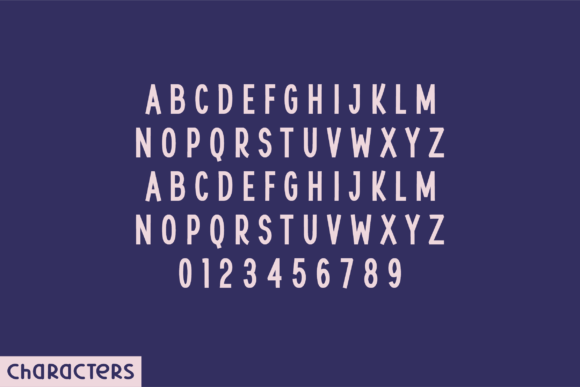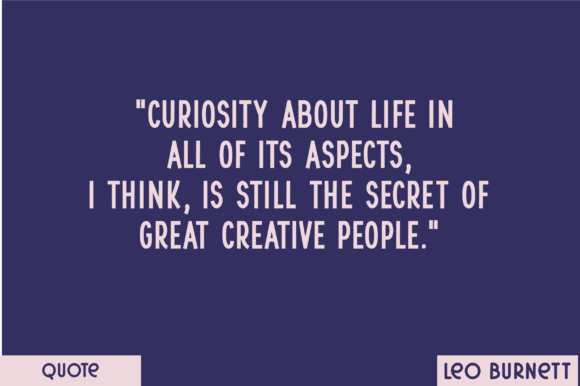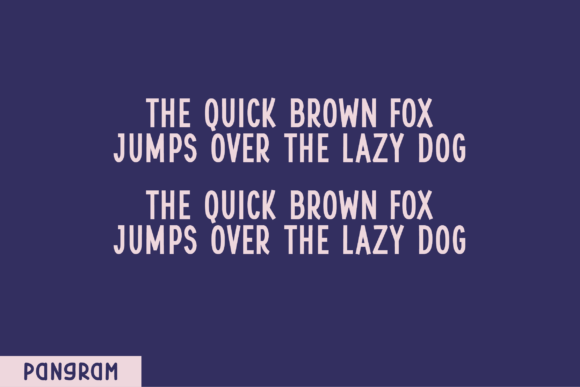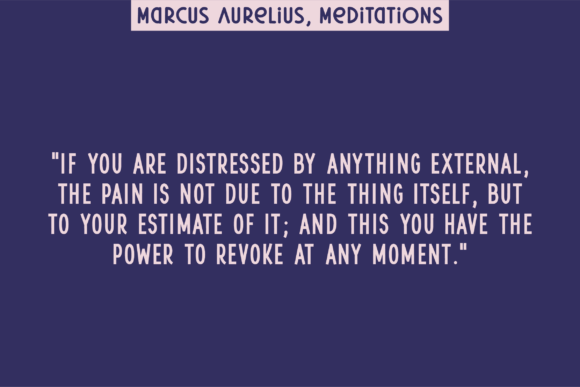
Introducing Deviled Font: The Unique Sans Serif for Creative Designs
In the world of typography, a new font has emerged that’s been making waves among designers and crafters alike. Meet Deviled Font, a natural sans serif font that’s been crafted with precision and creativity. What sets Deviled apart is its unique approach to font design, where not a single node in each character’s indentation has been altered. This distinctive feature makes Deviled a standout in the realm of typography, perfect for a variety of design applications.
The Story Behind Deviled Font
Deviled Font is the brainchild of a meticulous design process aimed at creating a typeface that’s both simple and intriguing. By preserving the original indentation of each character, the font achieves a natural, unaltered look that resonates with authenticity. This method not only pays homage to traditional typography but also infuses it with a modern twist, making it highly versatile for contemporary design needs.
Key Features of Deviled Font
- Natural Sans Serif: Deviled Font boasts a clean and crisp sans serif design, making it highly legible and perfect for a wide range of applications, from digital media to print.
- Unique Character Indentation: The hallmark of Deviled Font is its untouched character indentation. This unique feature gives the font a distinctive look that’s both visually appealing and thought-provoking.
- Versatility: Deviled Font is incredibly versatile, suitable for various design projects including quotes, notes, t-shirts, and any product design that requires a touch of uniqueness.
Deviled Font is a treasure trove for designers and crafters looking to add a personal touch to their creations. Its distinctive style makes it an excellent choice for:
- Quotes and Sayings: Add a unique flair to inspirational quotes, sayings, and phrases with Deviled Font’s natural and unaltered aesthetic.
- Notes and Journals: Elevate your journaling or note-taking with a font that offers both clarity and character.
- T-Shirts and Apparel: Stand out in the world of custom apparel with Deviled Font’s unique style that’s sure to turn heads.
- Product Design: Whether you’re designing for packaging, branding, or any product that needs a distinctive touch, Deviled Font is an excellent choice.
Tips for Using Deviled Font
To make the most of Deviled Font, consider the following tips:
- Experiment with Sizes: Deviled Font’s clear and natural design ensures it remains legible across various sizes. Experiment with different sizes to find the perfect fit for your project.
- Play with Colors: The versatility of Deviled Font extends to its color palette. Try it with different colors to match or contrast with your design.
- Mix and Match: Don’t be afraid to combine Deviled Font with other typefaces to create a unique visual hierarchy.
Deviled Font is more than just a typeface; it’s a statement of creativity and individuality. Its unique approach to font design, coupled with its natural sans serif aesthetic, makes it an invaluable asset for designers and crafters. Whether you’re working on a digital project, crafting custom apparel, or designing products, Deviled Font offers a fresh and distinctive voice. Embrace the uniqueness of Deviled Font and let it elevate your designs to new heights.